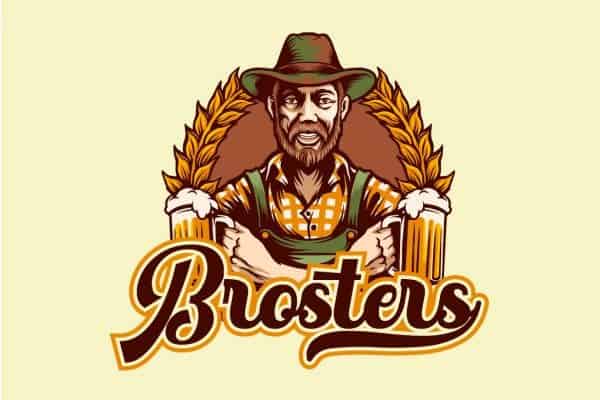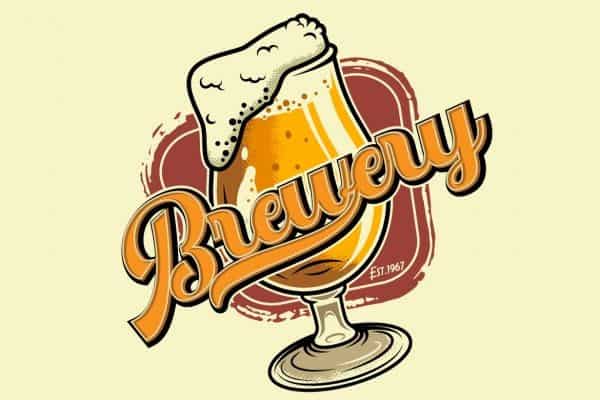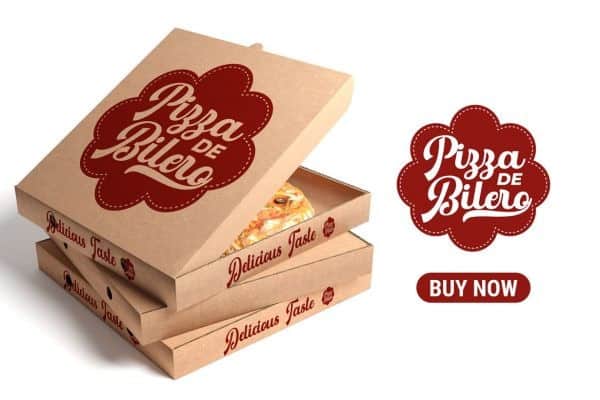
The Heglio Calligraphy Font is a amazing display typeface. The font is suitable for any project like branding , lettering , T-shirt print and may others. It’s a typeface from the designer FallenGraphic Studio. It under inspiration of vintage bar signage, hotel signage, barbershop signage etc. The Heglio has a classic impression but still elegant suitable for modern and classic designs project.The Heglio are perfect for badge, label, tshirt design, branding, logotype, poster, book cover, packaging and more.